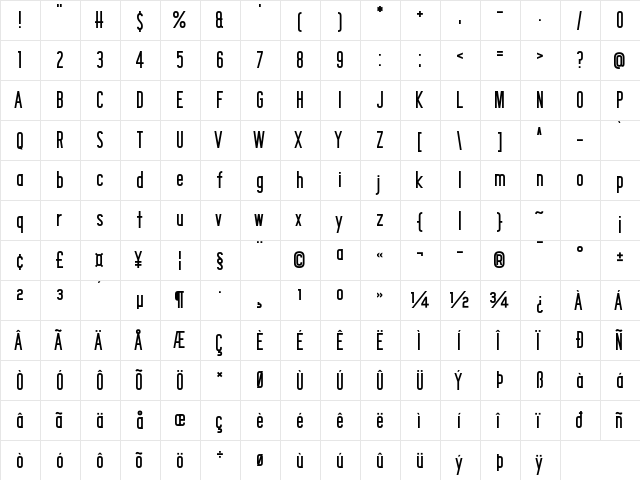
Shocking Headline Regular
Design Context for Shocking Headline Typeface
Shocking Headline is a composed and adaptable typeface that performs quietly and consistently across a wide range of design contexts.